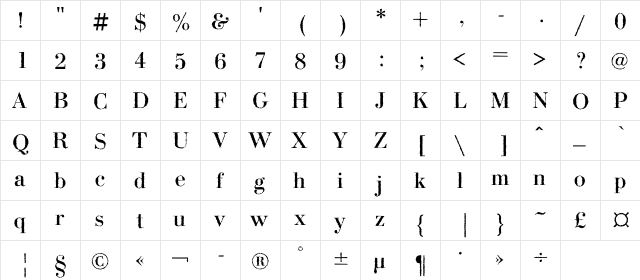
BodoniRoughC Regular Font Preview
BodoniRoughC Regular
BodoniRoughC Regular Font Details
Design Context for BodoniRoughC Typeface
BodoniRoughC embraces imperfection — its rough, textured character adds raw authenticity to designs that want to feel lived-in and unconventional.
A strong fit for alternative music projects, graffiti-adjacent design, and anything that deliberately resists polish.
Pro Tip: Use BodoniRoughC at larger sizes where the texture and irregularity of each letterform can be clearly seen — it loses its character at small sizes.